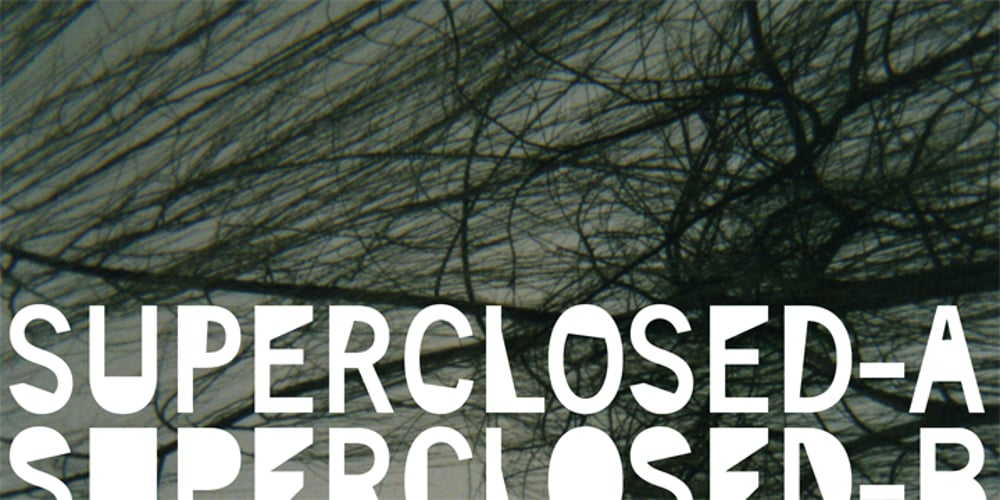
Superclosed
Superclosed font
Superclosed Font Family was designed by published by studiocharlie. Superclosed contains 2 styles and family package options. Developed from Superbastone and projected to be used with all the weights of superbastone. Superclosed is developed with darker letters obtained closing eyes and noses and modifing tails arms and legs.